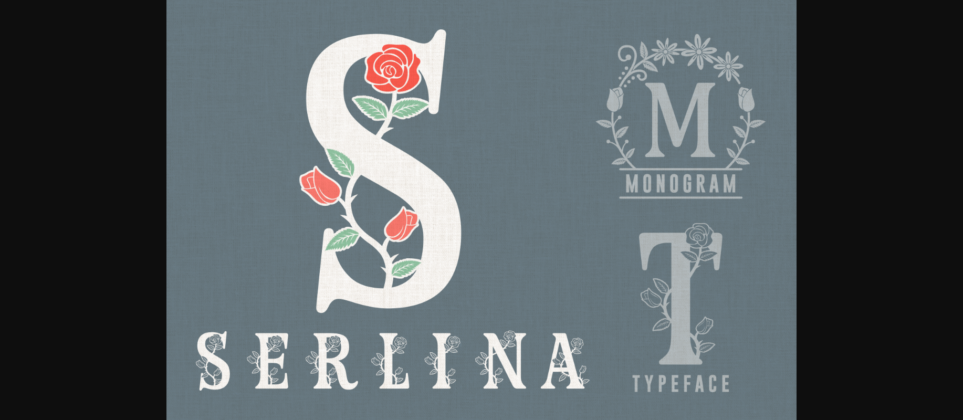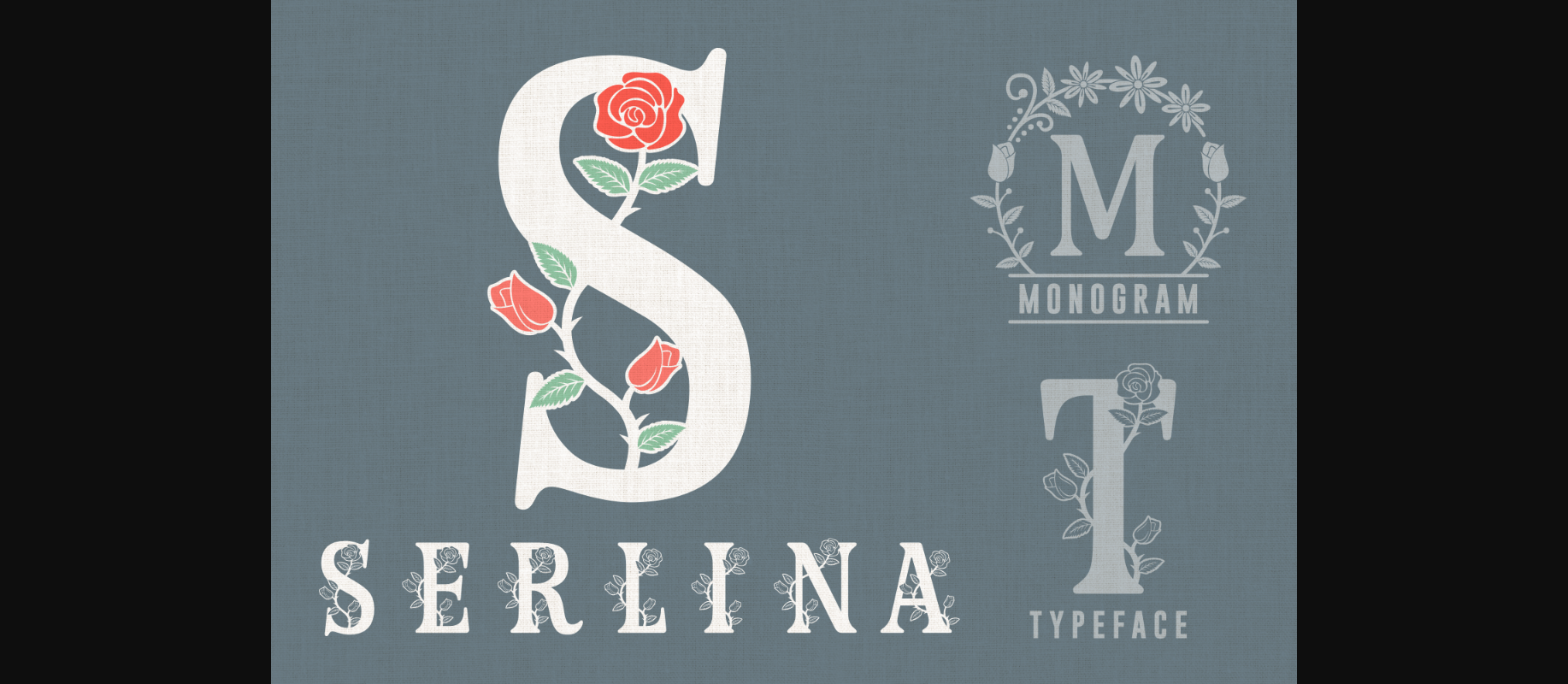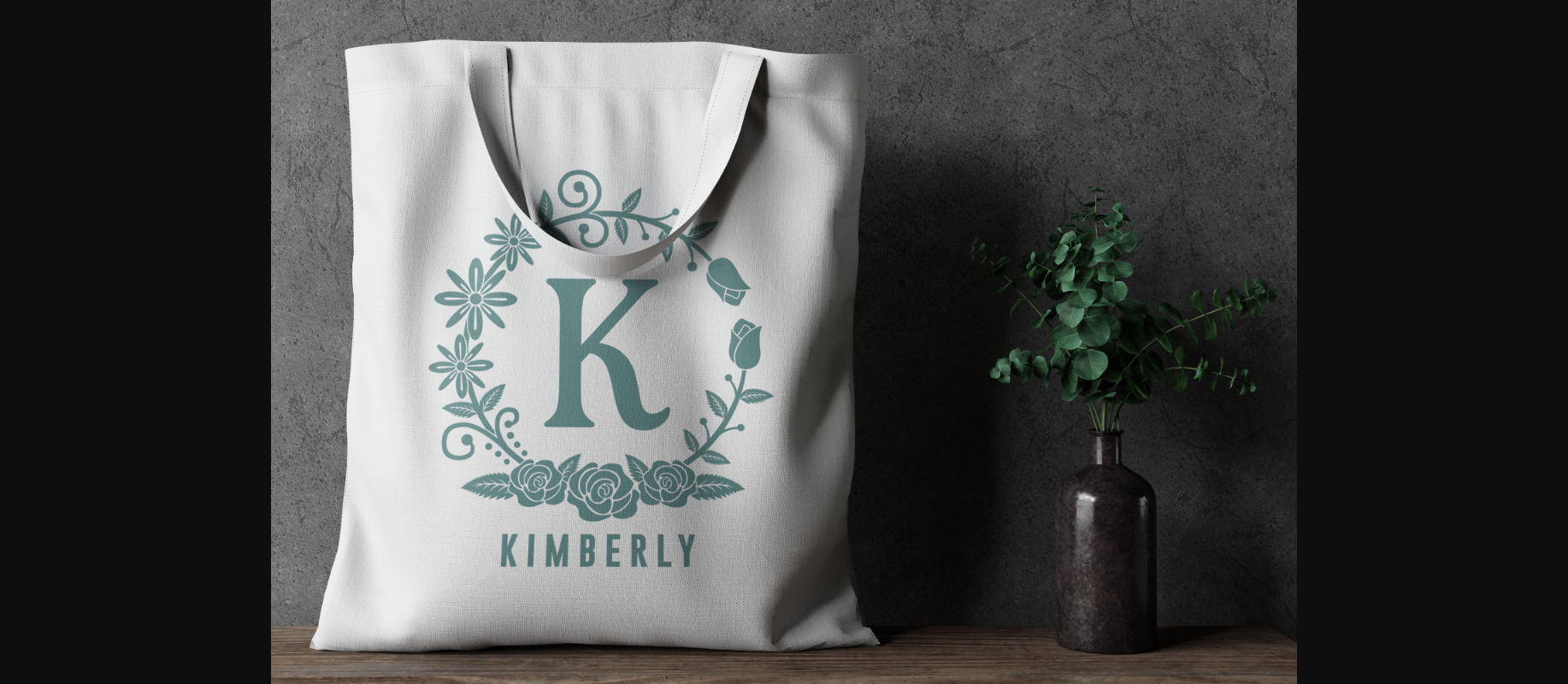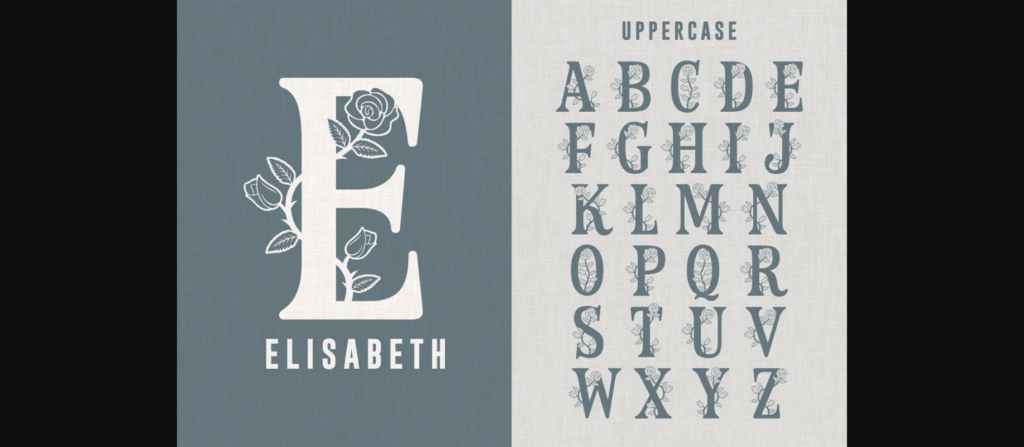
About Serlina Font
Serlina is an organic and beautiful decorative font, featuring lovely ornaments. No matter the topic, this font will be an incredible asset to your fonts’ library, as it has the potential to elevate any creation. This font is PUA encoded which means you can access all of the amazing glyphs and ligatures with ease!